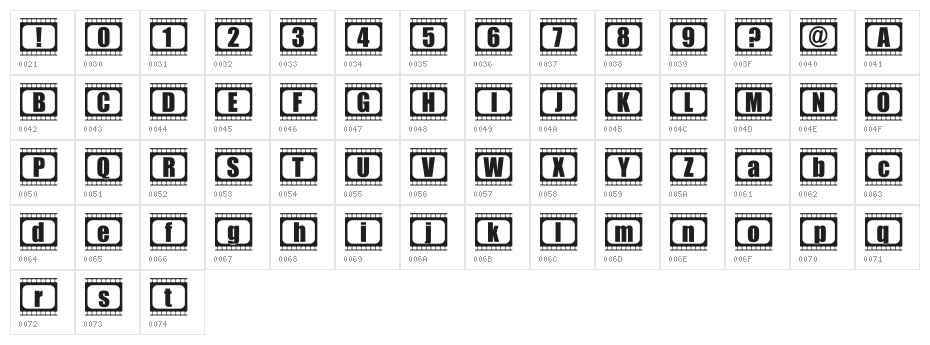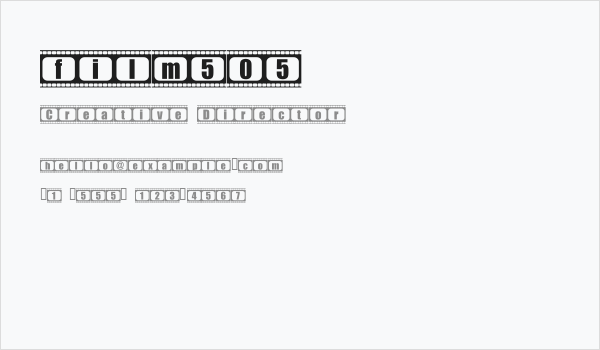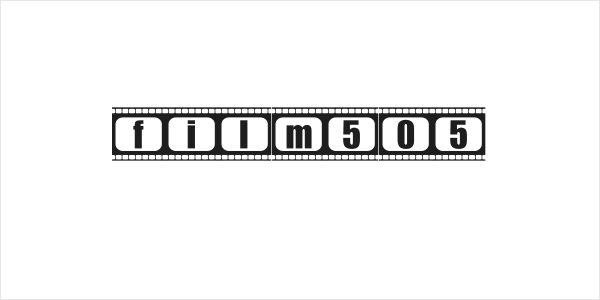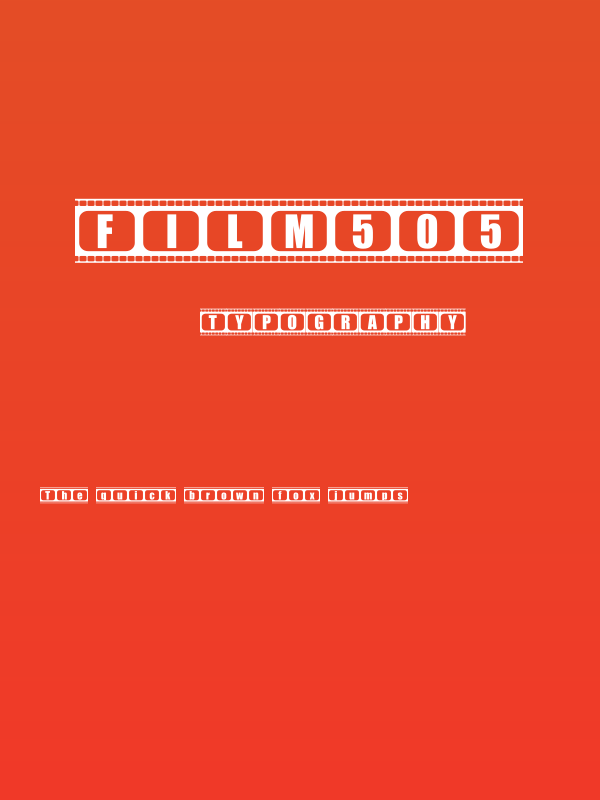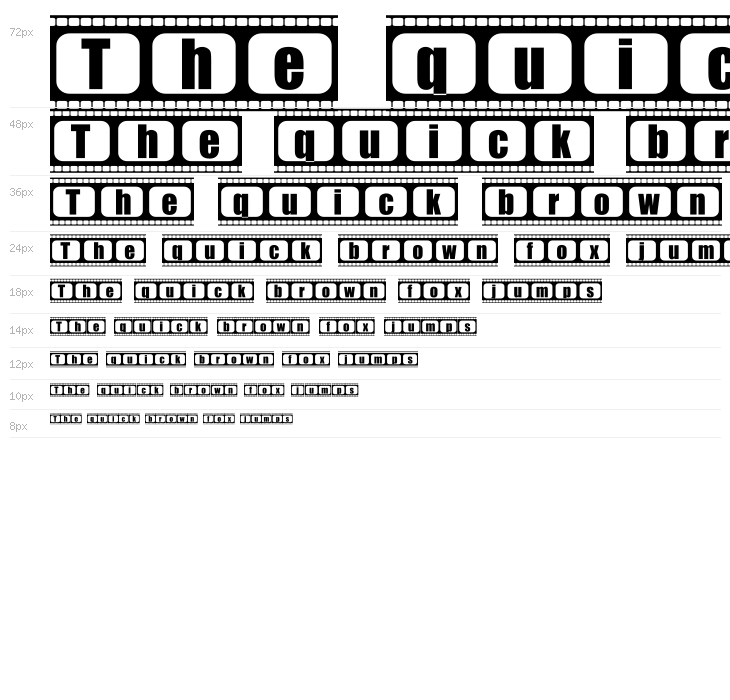
film505 Font
film505 Description
This font features a unique design where each character is encapsulated within a filmstrip frame, evoking a cinematic theme. The letters and numbers are bold and clear, making them stand out against the detailed filmstrip background. The uppercase and lowercase letters maintain a consistent style, with rounded edges and a modern feel. The numerals are similarly styled, ensuring uniformity across the character set. Special characters are also included, each fitting seamlessly into the filmstrip motif. This font is ideal for projects that require a touch of nostalgia or a nod to the film industry, offering a playful yet professional appearance.
| Proposed Projects | Ideal for movie posters, film festival branding, retro-themed designs, and creative media projects. |